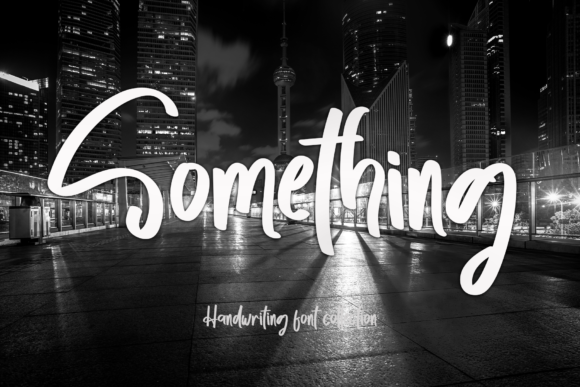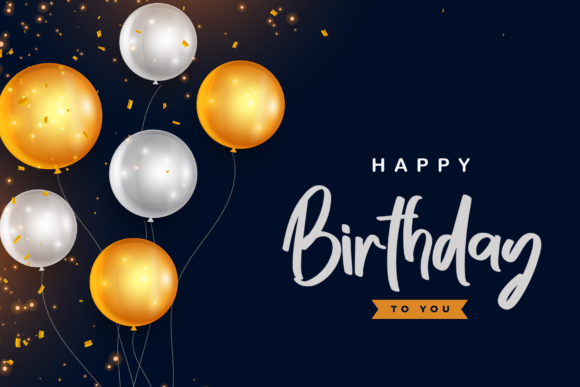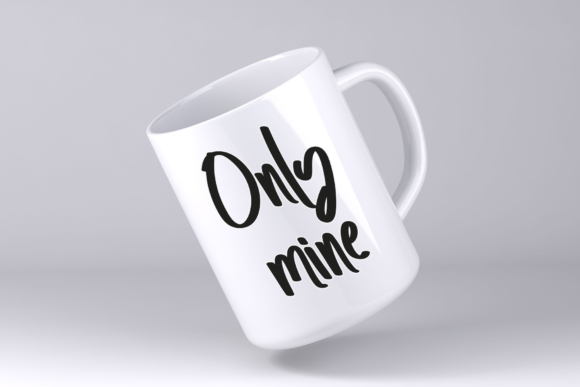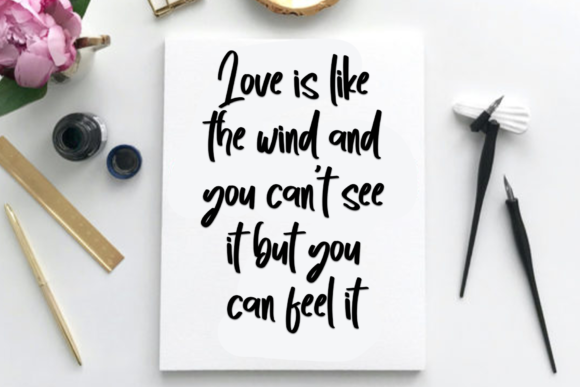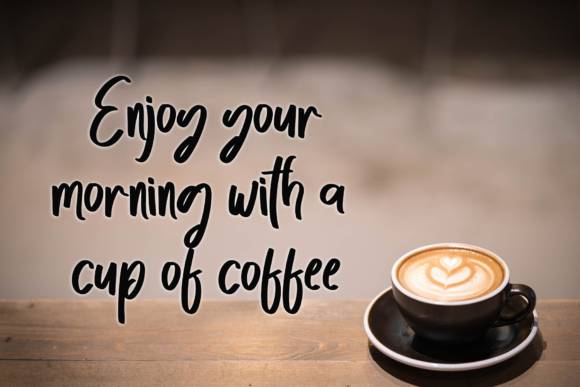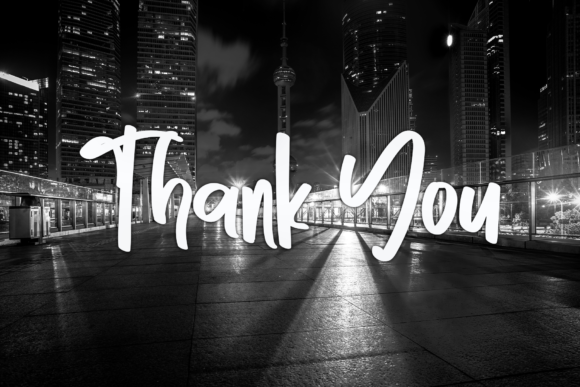
Something Font
About Something Font
“Something,” a free-flowing script font, has been thoughtfully designed for a wide array of applications, including packaging products, invitation cards, flyers, mockups, event posters, and anything else that demands high-quality vibes. With its beautiful and balanced characters, this font seamlessly integrates into a large design pool, making it a versatile choice for diverse creative projects.
The free-flowing nature of “Something” imparts a dynamic and lively quality to each character, elevating the visual appeal of your designs. Imagine this font enhancing product packaging, where its high-quality vibes turn ordinary labels into visually striking statements. The beautiful and balanced characters contribute to a harmonious presentation, making your products stand out on shelves.
For invitation cards, “Something” becomes a pivotal element in setting the tone for special occasions. The script’s elegance adds a touch of sophistication, creating invitations that are not only informative but also visually captivating.
In the realm of event posters, flyers, and mockups, “Something” injects energy and style. The font’s versatility ensures that it seamlessly adapts to different design contexts, making your promotional materials both eye-catching and memorable.
The beauty of “Something” lies in its ability to enhance a variety of design projects, thanks to its well-crafted characters and high-quality vibes. As you integrate this font into your creative endeavors, may it bring a sense of fluidity and elegance, turning your designs into expressions of refined aesthetics.